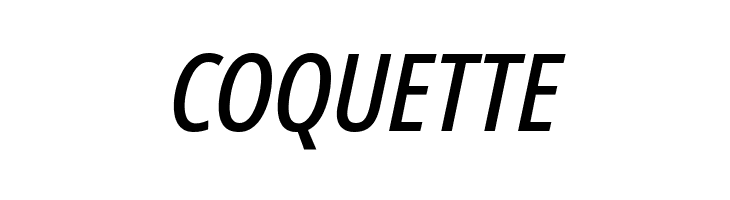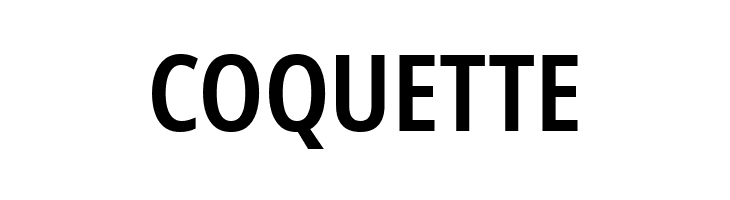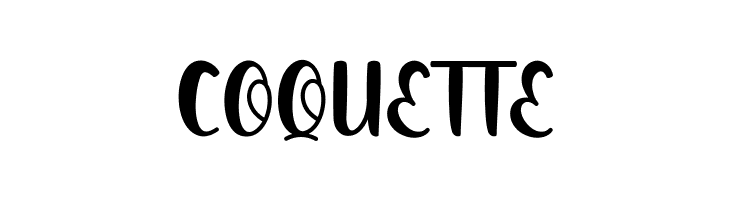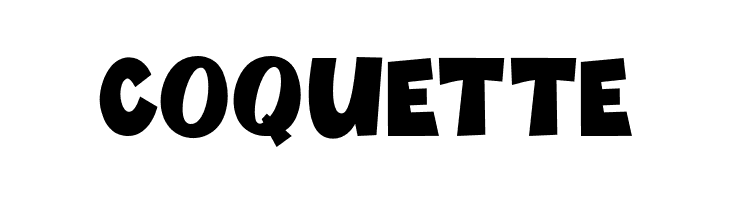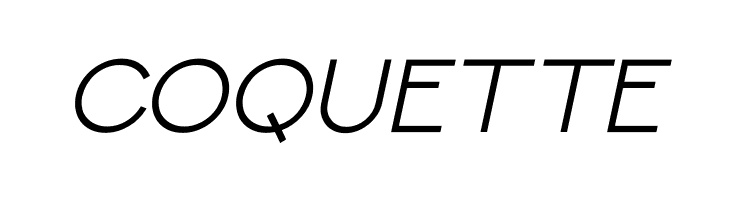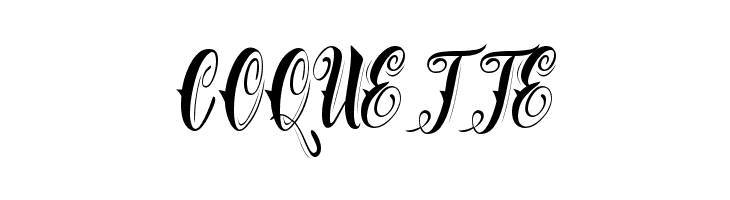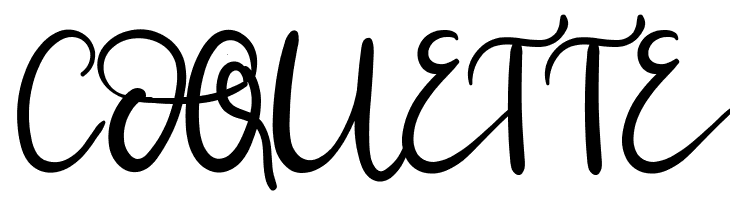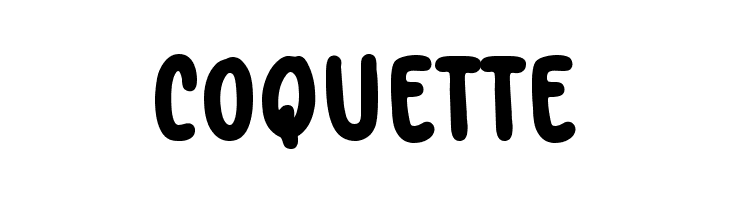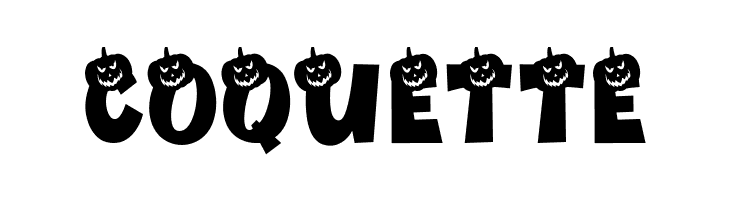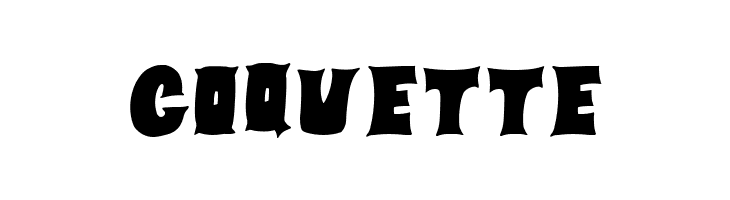
A modern, sans-serif, condensed italic font with medium weight.
A modern, bold, and condensed sans-serif font with clean lines.
A modern, thin, and condensed sans-serif font with clean lines.
A playful, casual handwritten font with irregular strokes and an organic flow.
A decorative script font with elegant swirls and flourishes.
A playful, handwritten font with a casual and informal style.
A bold, dynamic font with sweeping strokes and a modern calligraphic style.
A modern, tall, and narrow sans-serif font with consistent stroke width.
A modern, italic font with a sleek, dynamic style.
A playful, handwritten font with dynamic strokes and a whimsical style.
A playful and elegant script font with a handwritten, cursive style.
A playful, handwritten font with bold, rounded strokes and a whimsical charm.
A graceful, cursive font with elegant curves and stylish flourishes.
A bold, playful font with rounded, thick strokes and a whimsical style.
A playful, bold, and rounded font with a hand-drawn feel.
A lively, flowing script font with elegant loops and a natural handwriting style.
An elegant, flowing script font with a handwritten style.
A bold, playful font with exaggerated, uneven strokes and a whimsical style.
A bold, Halloween-themed font with playful, spooky elements.
A bold, playful Halloween-themed font with jack-o'-lantern faces on each character.
A bold, playful handwritten font with thick strokes and rounded edges.
A playful handwritten font with smooth, flowing lines and a casual aesthetic.
A playful and energetic script font with flowing, interconnected letterforms.
A playful, handwritten script font with dynamic, flowing lines.
A playful, hand-drawn font with bold, rounded characters and a whimsical style.
A modern, tubular font with a playful, bamboo-like design.
A bold, distressed font with a grunge, hand-painted style.
A bold, geometric font with a strong, blocky appearance.
A bold, geometric font with angular shapes and a futuristic aesthetic.
A bold, playful script font with smooth, flowing strokes.
A bold, expressive script font with dynamic brush strokes and fluid motion.
A modern, geometric font with clean lines and rounded edges.
A sleek, italicized font with a modern and elegant style.
A playful, hand-drawn font with a rustic and artistic style.
A bold, angular, and italicized font with a modern geometric style.